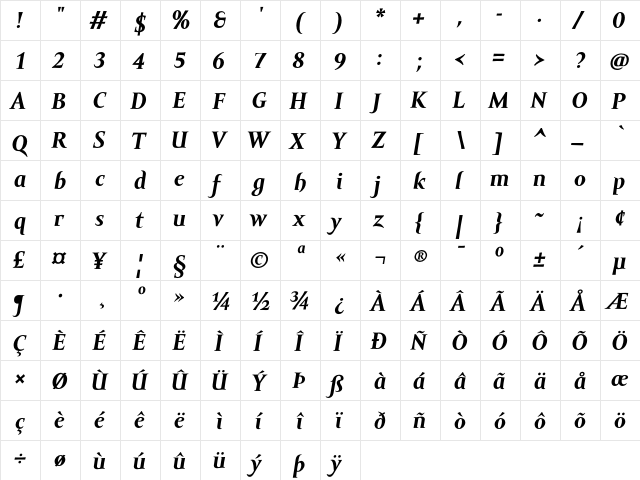
Amor Serif Text Pro Bold Italic Font Preview
Design Context for Amor Serif Text Pro Typeface
Amor Serif Text Pro carries the refined structure of traditional serif typography, with bracketed terminals and considered proportions that communicate credibility and craft. The slanted form adds forward momentum and visual energy. The heavy weight commands attention and anchors typographic hierarchies.
Pro Tip: Use Amor Serif Text Pro for editorial body copy and considered headline work. Pair with a neutral sans for UI elements or captions to create a classic hierarchy.